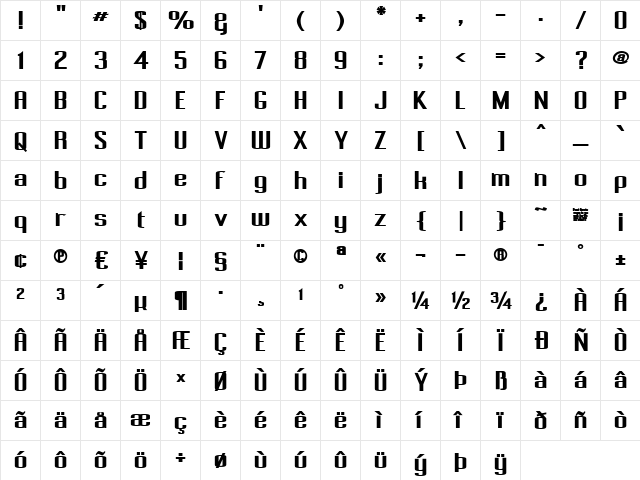
Pecot Regular
Design Context for Pecot Typeface
Pecot offers clean, dependable letterforms without strong stylistic allegiance, making it a practical choice for designers who need flexibility.
Pro Tip: Pair Pecot with a font of contrasting weight or personality to build a more expressive typographic hierarchy.